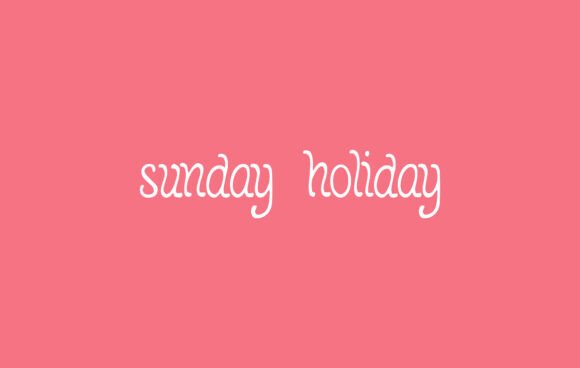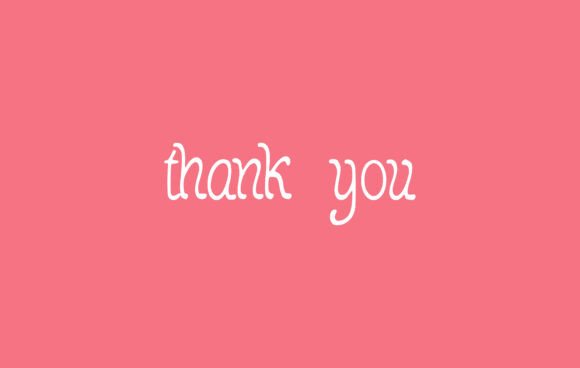
Introduction to Sierra Font
Have you ever found yourself brainstorming ideas for a creative project, only to be stuck on the perfect font to bring it all together? It’s a frustrating feeling, but one that we’re here to help you overcome. For designers, finding the right font can be the difference between a good design and a great one. And that’s where Sierra Font comes in – a high-quality, authentic handwritten font that’s sure to add a touch of romance to any design.
With its transparent background and legible design, Sierra Font is the perfect addition to any creative project. Whether you’re working on a magazine headline, social media post, or wedding invitation, this versatile font is sure to impress. And the best part? It’s a free download, making it an essential design resource for any designer looking to take their work to the next level.
Key Features of Sierra Font
- Unique, modern design with a clean and minimalist aesthetic
- Comprehensive character set, including Latin and Cyrillic alphabets
Honest Review: Sierra Font
I recently had the chance to work with Sierra Font, and I must say it’s a solid addition to any design resource collection. The high-quality typography is perfect for any creative project that requires a modern and sleek feel.
One of the things that stood out to me was the transparent background, which made it easy to layer and manipulate the font in my design. This was a huge time-saver and allowed me to focus on other aspects of the project.
Here are some of the things that work well with Sierra Font:
- High-quality typography that’s perfect for modern designs
- Transparent background for easy layering and manipulation
That being said, there are a few limitations to keep in mind:
- Some users may find the font a bit too simplistic for more complex designs
- Limited font styles and weights may not be suitable for all creative projects
Overall, I was impressed with Sierra Font and would recommend it to anyone looking for a high-quality, free font for their next creative project.
Sierra Font
The Sierra Font is a versatile design resource ideal for creative projects that require a high-quality, elegant font. Its transparent background makes it a great choice for layered designs and graphics.
Tips for Getting the Most Out of Sierra Font
To get the most out of Sierra Font, use it in combination with other high-quality design resources, such as images and graphics. Experiment with different font sizes, colors, and styles to create unique and visually appealing designs.
Common Use Cases for Sierra Font
The Sierra Font is commonly used in creative projects such as invitations, brochures, and website headers. Its elegant design and transparent background make it a great choice for layered designs and graphics.